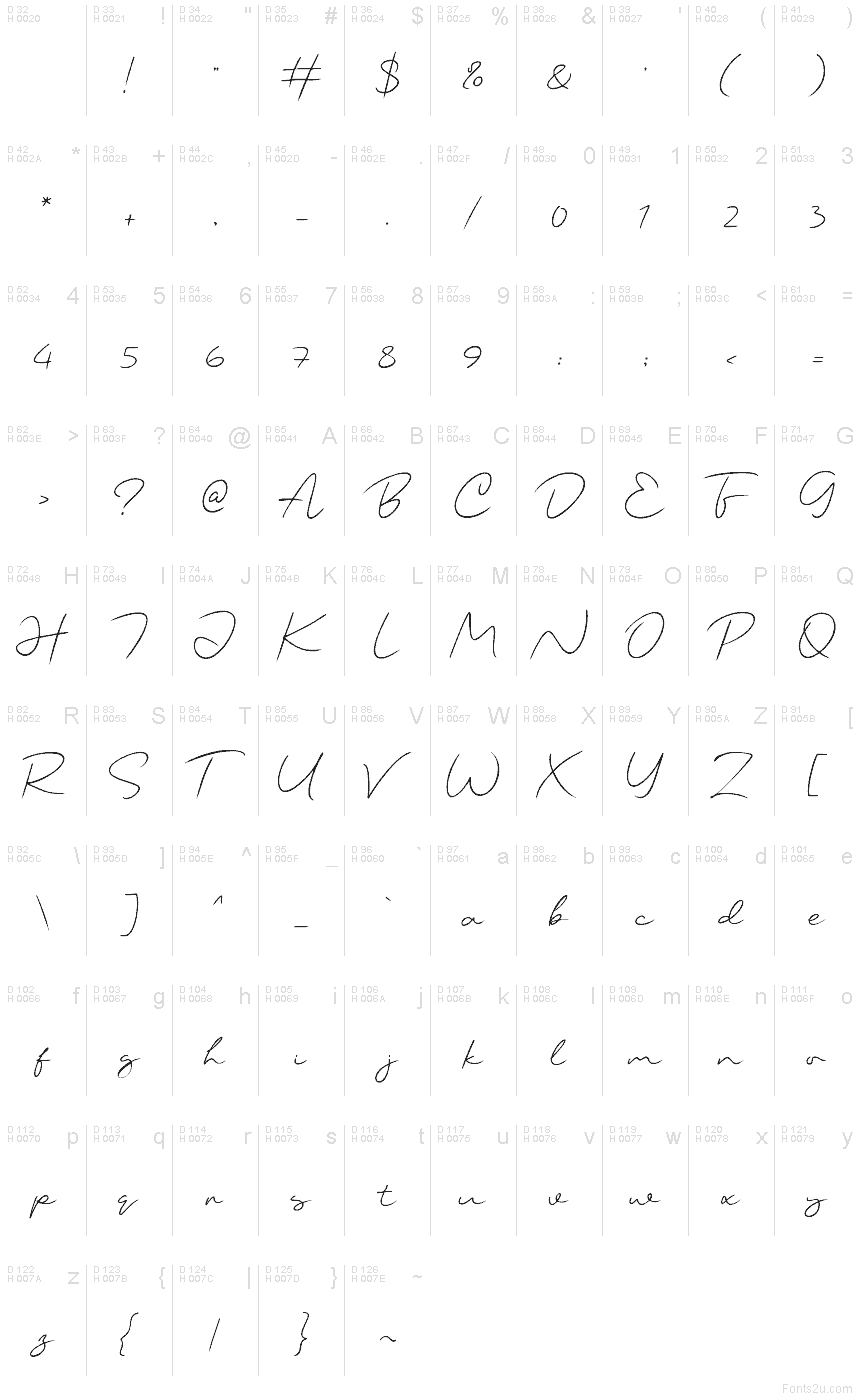
Miami Sunday
Miami Sunday font is a light handwritten typeface by Khurasan characterized by casual elegance, flowing lines, and modern feel. Its airy appearance holds visual appeal that can be put to use in creative projects that require drawing attention and engaging intellectual faculties.